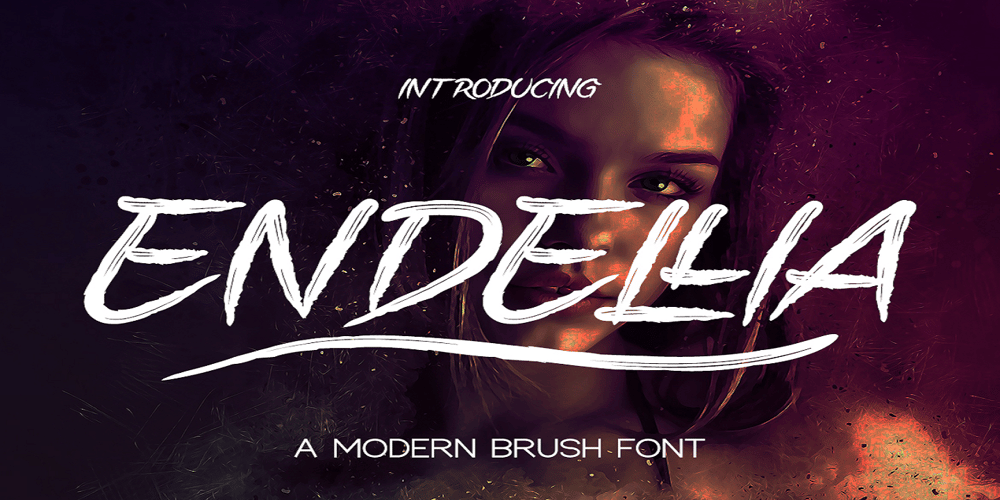
Endellia
Endellia font
Endellia Font Family was designed by Saiful Anwar and published by Sealoung. Endellia contains 1 styles and family package options. Endellia is a bold and thick lettered display font, created with the help of a brush pen. Add it to your most creative ideas and notice how it makes them come alive!